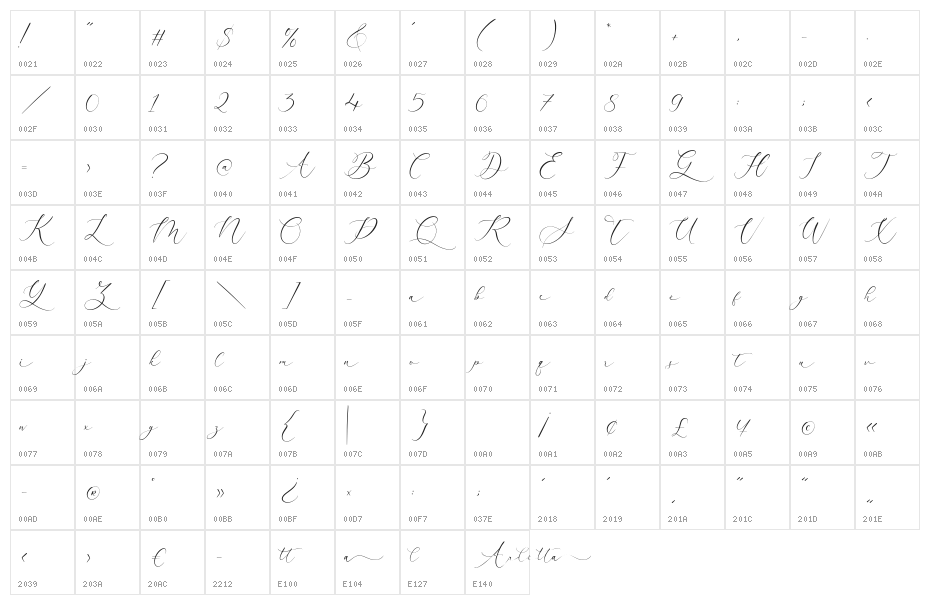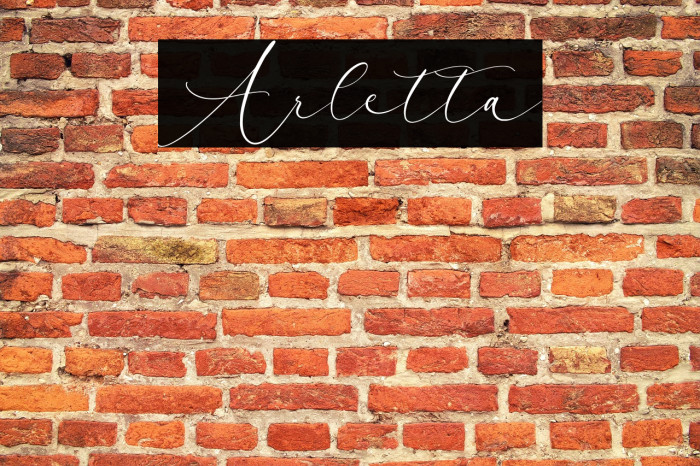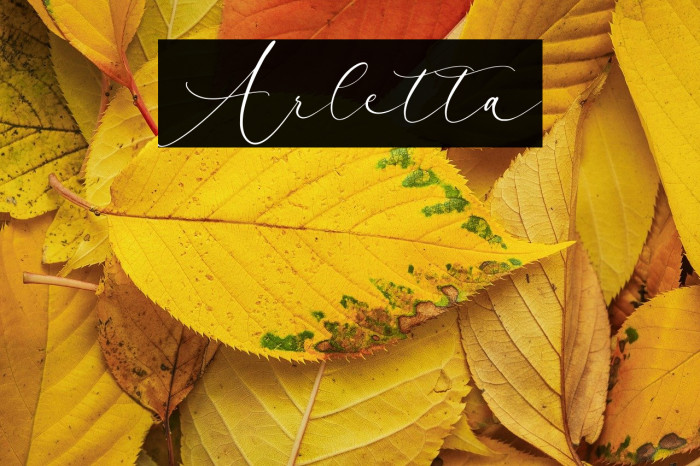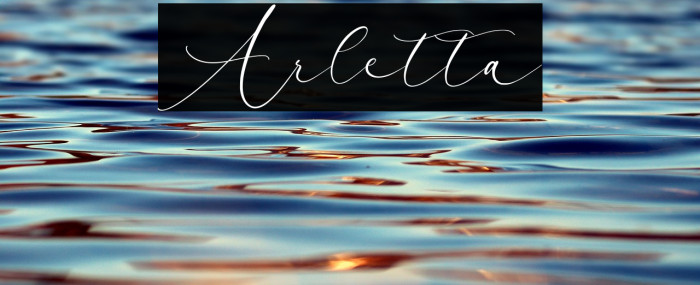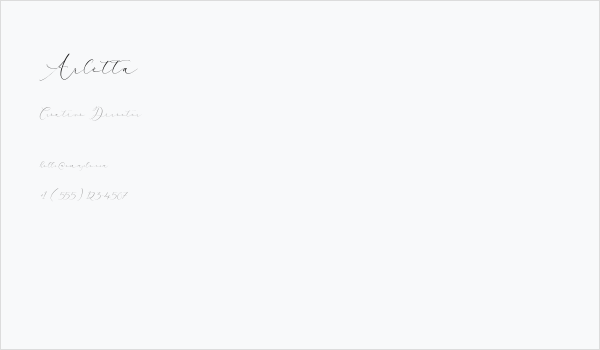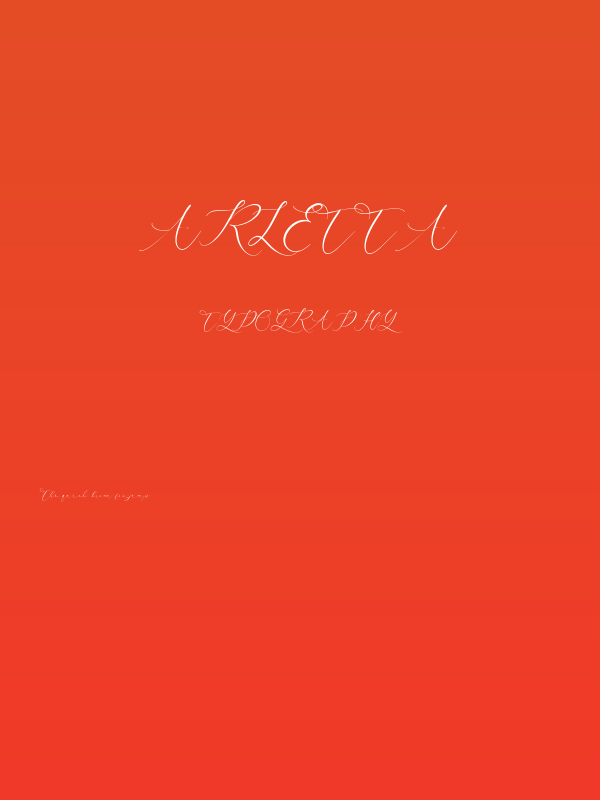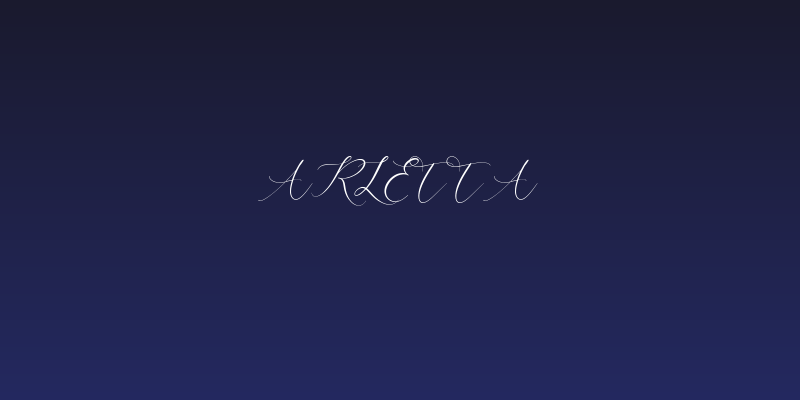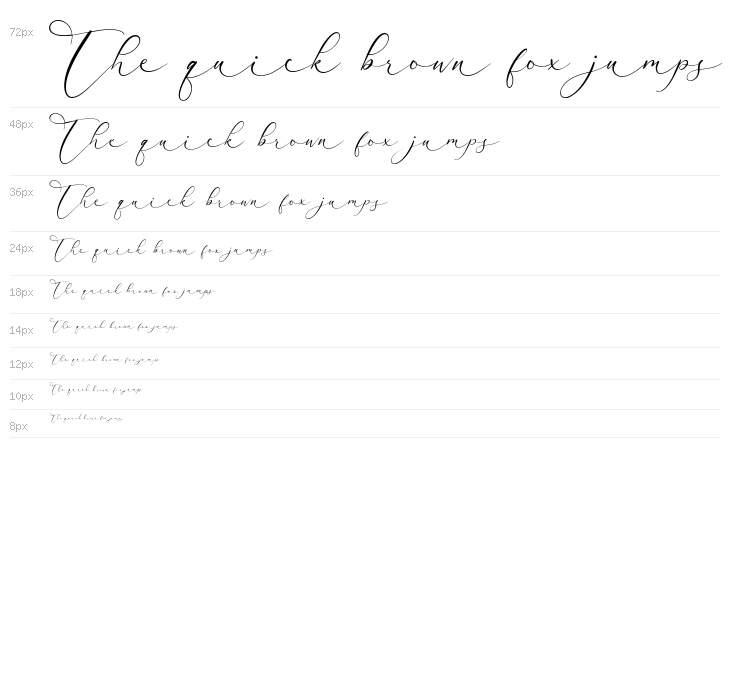
Arletta Font
Arletta Description
This elegant script font features flowing, interconnected letters that exude a sense of sophistication and grace. The uppercase letters are adorned with delicate flourishes, adding a touch of extravagance, while the lowercase letters maintain a smooth and consistent flow. The numerals and special characters are crafted with the same attention to detail, ensuring a cohesive look throughout. The thin, delicate strokes and high contrast between thick and thin lines give the font a refined and luxurious appearance, making it ideal for formal invitations, branding, and decorative purposes.
| Use Case | Headlines, Invitations, Branding |
| Proposed Projects | Ideal for wedding invitations, luxury branding, elegant stationery, and decorative headlines. |